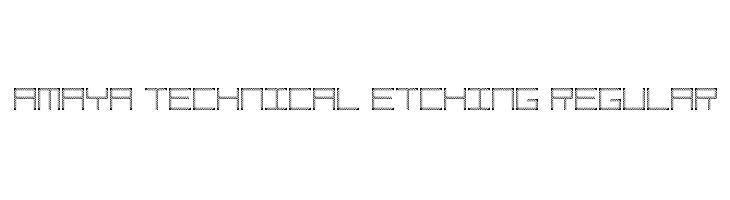
( Fonts by Dieter Steffmann )
A bold, ornate blackletter font with a medieval, gothic style.
( Fonts by Manfred Klein - manfred-klein.ina-mar.com )
A geometric and architectural font with a blueprint aesthetic, featuring only uppercase letters.
A bold, cartoonish font with thick outlines and playful character design.
( Fonts by Graham Meade - GemFonts )
A bold, gothic-inspired font with sharp, abstract shapes.
( TheLouster115 )
A pixelated, retro-style font with a blocky, digital appearance.